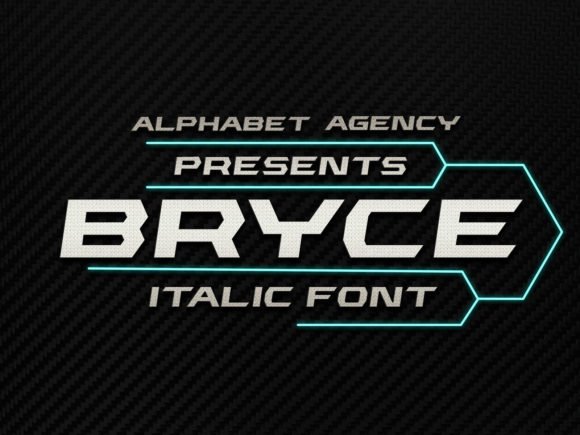
Have you ever been working on a project, pouring your heart and soul into it, and then suddenly, something is missing? A spark of creativity hits you, and you know exactly what’s needed to take your design to the next level. For many designers, this moment is often a search for the perfect font to bring their vision to life.
This is where Bryce Font comes in – a bold, cool, and robotic display font designed to elevate any creation. Whether you’re working on a futuristic sci-fi project, a tech startup’s branding, or a modern art piece, Bryce Font has the potential to be a wonderful asset to your font library.
Bryce Font Key Features
- Font Family: Bryce is a sans-serif font family designed for digital use. It comes in multiple weights and styles, including regular, bold, italic, and bold italic.
- Unique Characteristics: Bryce font features a clean and modern design, with a focus on legibility and readability. Its geometric shapes and subtle rounded edges give it a unique and sophisticated look.
- Language Support: Bryce font supports a wide range of languages, including Latin, Cyrillic, and Greek scripts, making it a versatile choice for global designs.
Bryce Font Review
Overall, Bryce Font is a decent font, but it has its share of pros and cons. Here’s my honest take on it.
- Bryce Font has a clean and modern design that’s perfect for contemporary projects.
- The font is highly legible, making it suitable for both digital and print media.
- It comes in a range of weights, from light to bold, allowing for flexibility in typography.
- The font is also highly versatile, suitable for various design projects, from logos to body text.
- The font lacks personality and uniqueness, making it blend in with other modern fonts.
- It may not be the best choice for projects that require a bold, statement-making font.
- The font’s scalability can be an issue, with some letters appearing pixelated at smaller sizes.
In conclusion, Bryce Font is a solid, middle-of-the-road font that won’t blow you away, but won’t let you down either. It’s a safe choice for projects where you want a clean, modern look without taking any risks. However, if you’re looking for a font that stands out from the crowd, you may want to consider other options.
Montserrat is a sans-serif font designed by Julieta Ulanovsky. It is a great alternative to Bryce Font for designers who need a clean and modern look. Montserrat is ideal for use in digital products, such as websites, apps, and mobile devices. It is also a good choice for body text, as it is highly legible and readable. Montserrat is more geometric and modern compared to Bryce Font, which has a more classic and elegant feel.
Lato is a sans-serif font designed by Łukasz Dziedzic. It is a versatile font that works well for both digital and print projects. Lato is a good alternative to Bryce Font for designers who need a font with a friendly and approachable feel. It is ideal for use in headings and titles, as it has a strong and confident presence. Lato is more rounded and friendly compared to Bryce Font, which has a more angular and modern feel.